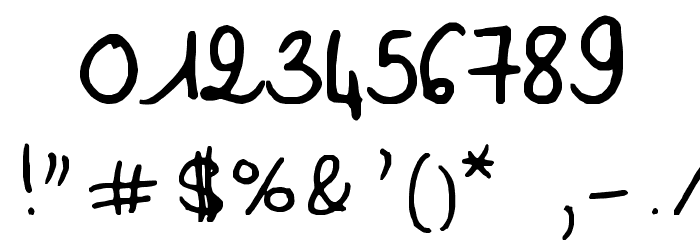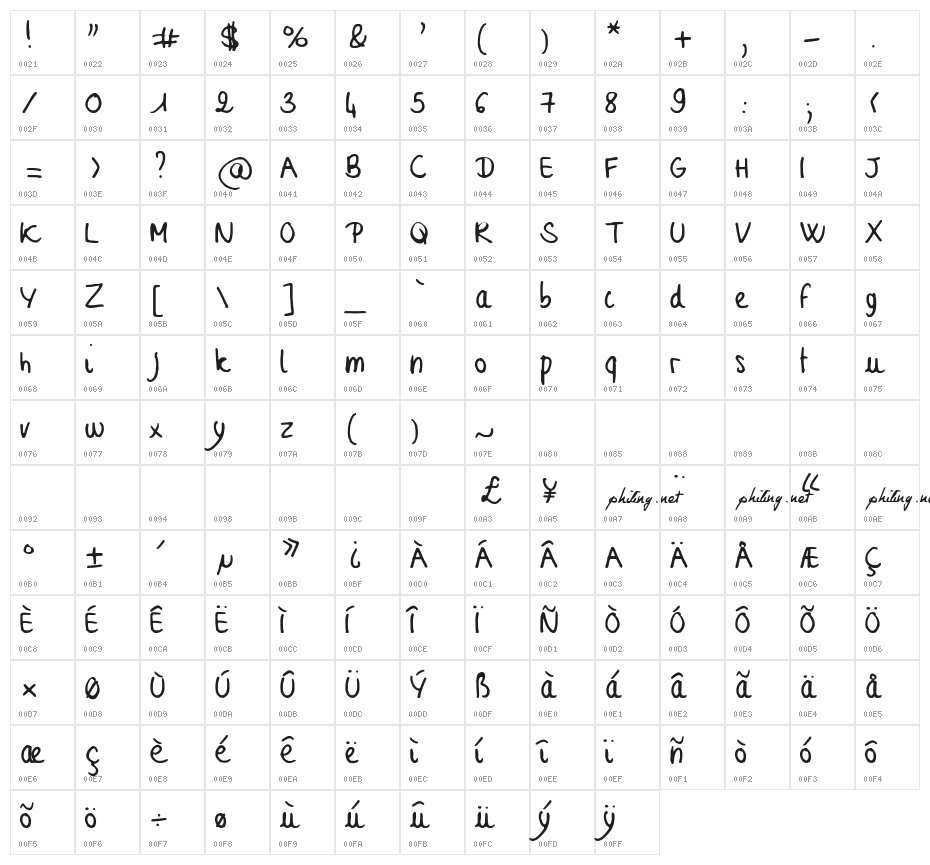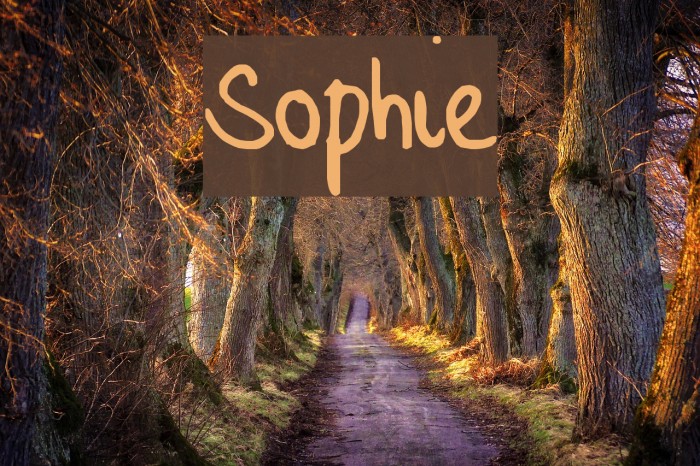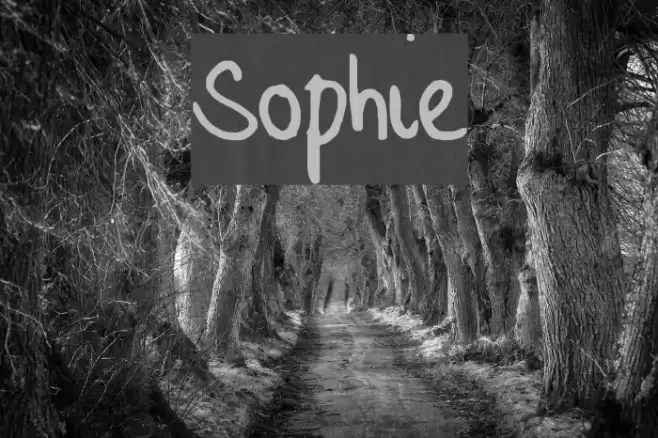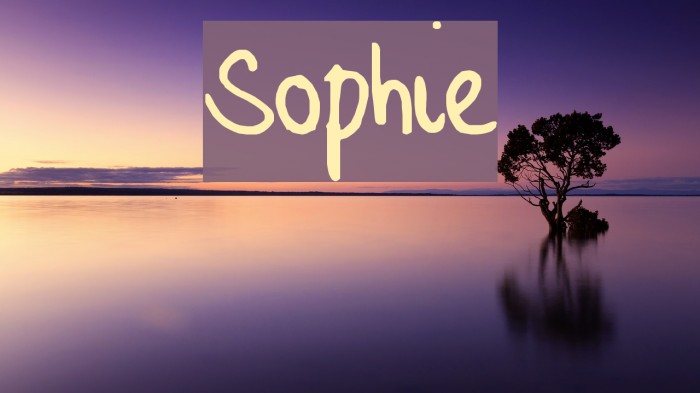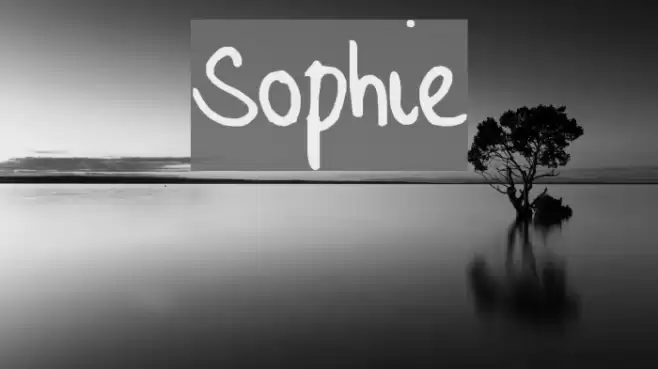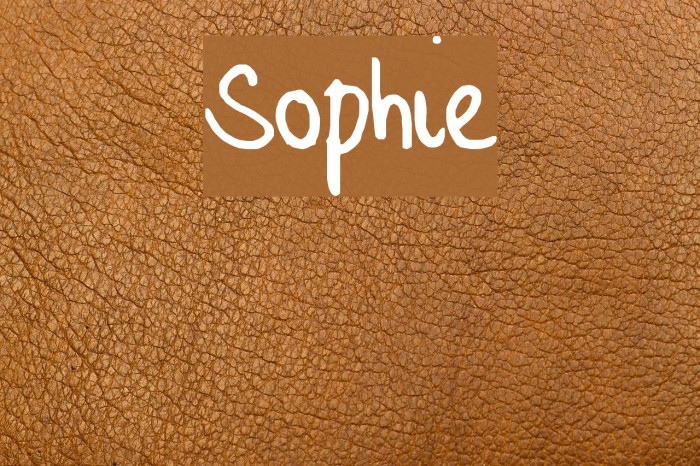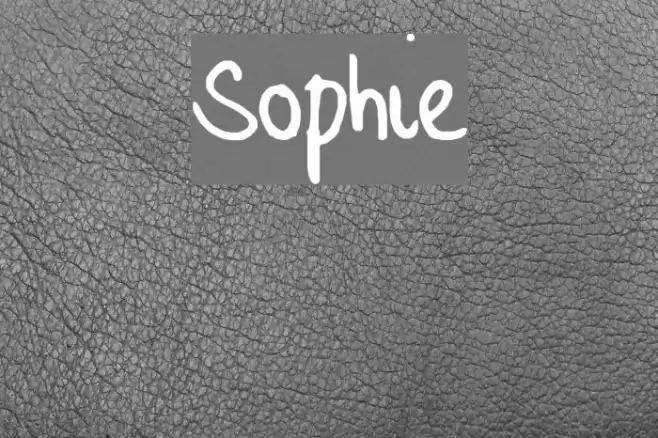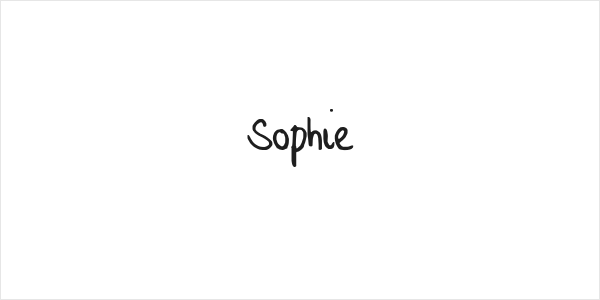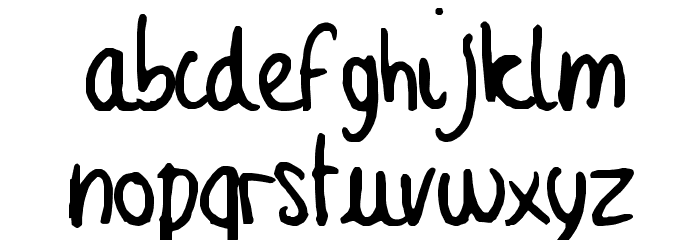
Sophie Font
Sophie Description
This font features a playful and casual handwritten style, characterized by its rounded and slightly irregular letterforms. The uppercase letters are bold and prominent, while the lowercase letters maintain a consistent flow, adding a touch of informality. The numbers and special characters follow the same style, ensuring uniformity across all glyphs. The overall appearance is friendly and approachable, making it suitable for projects that require a personal touch. The strokes are moderately thick, providing good readability without compromising the handwritten aesthetic.